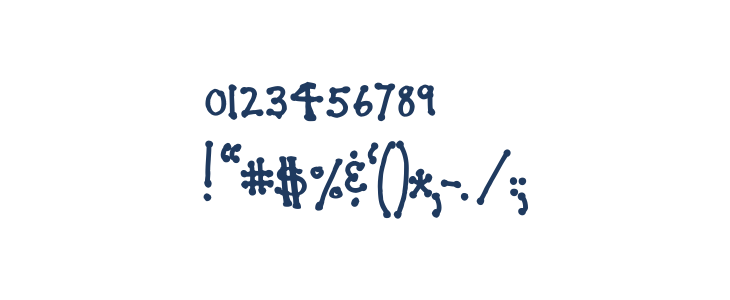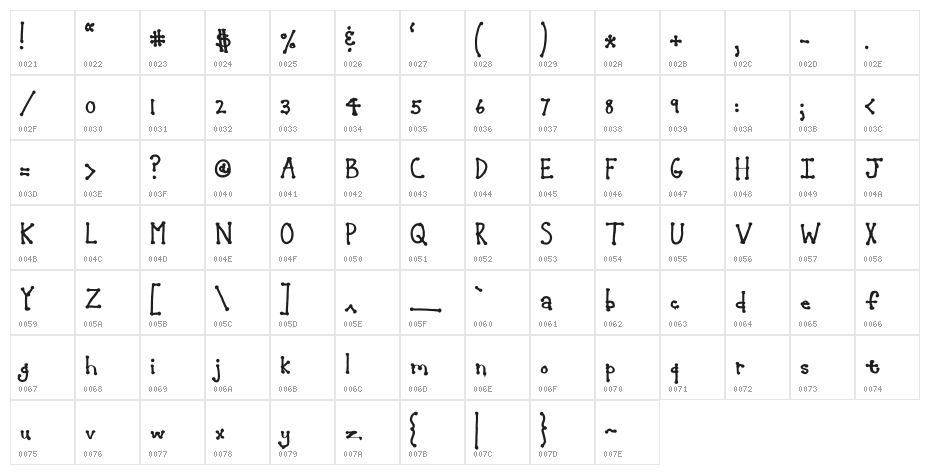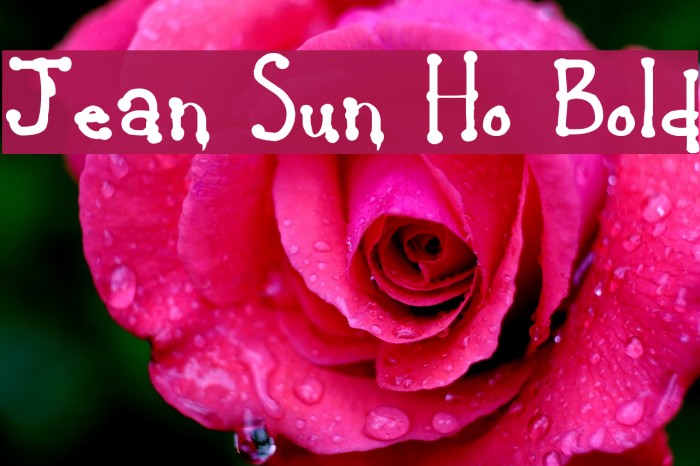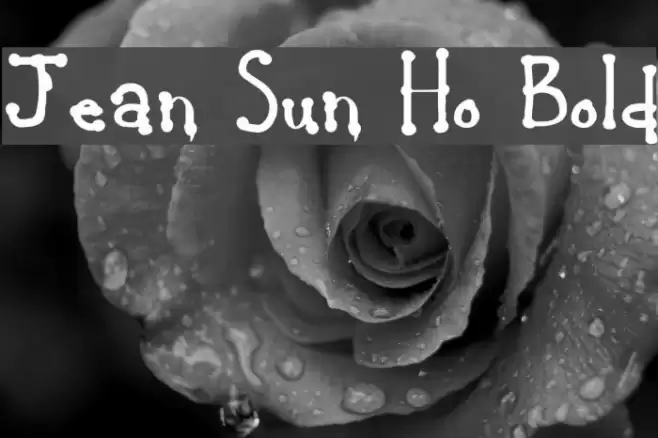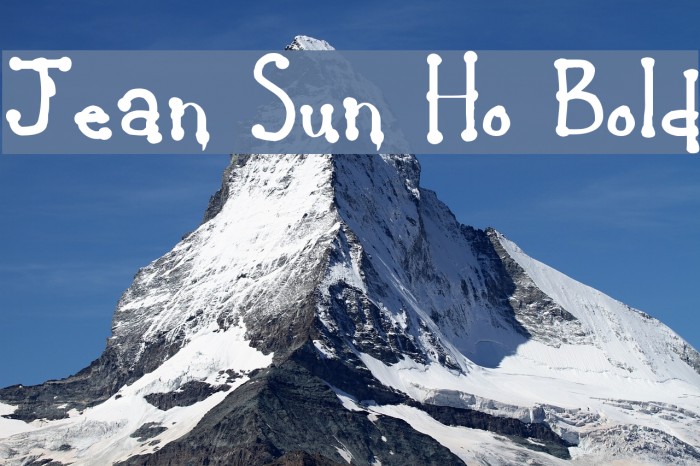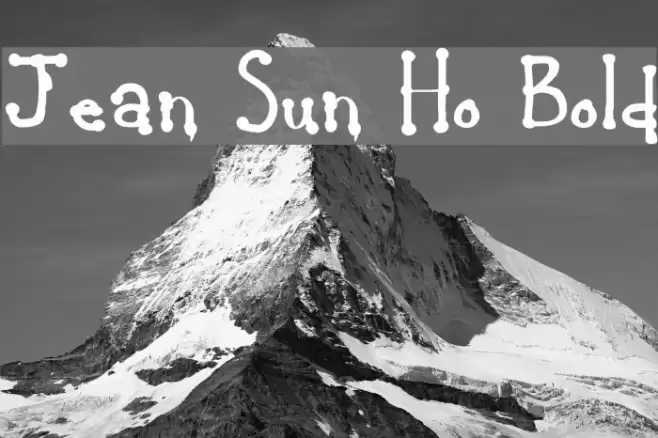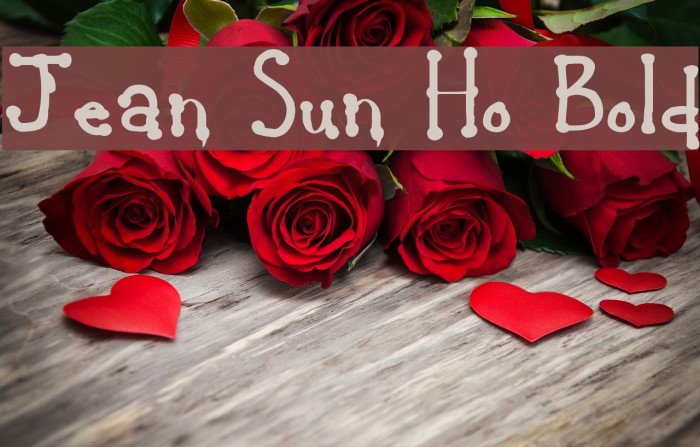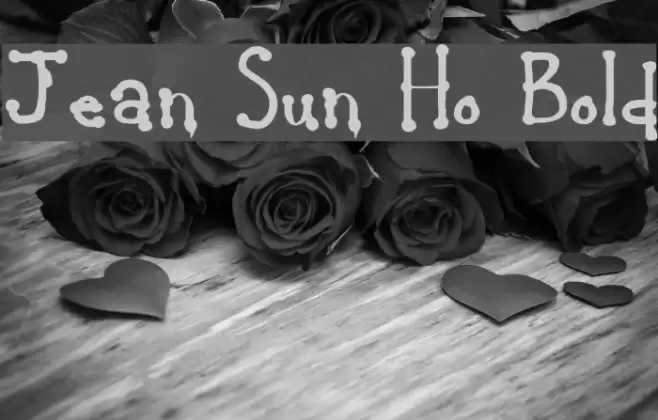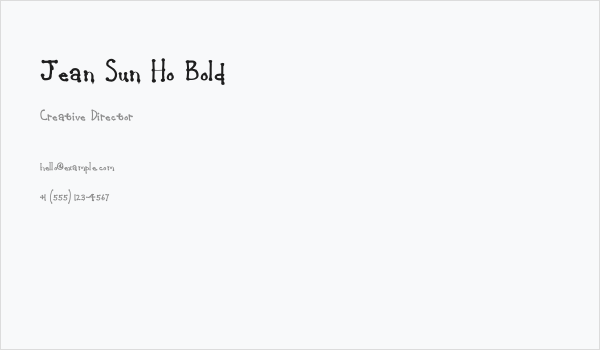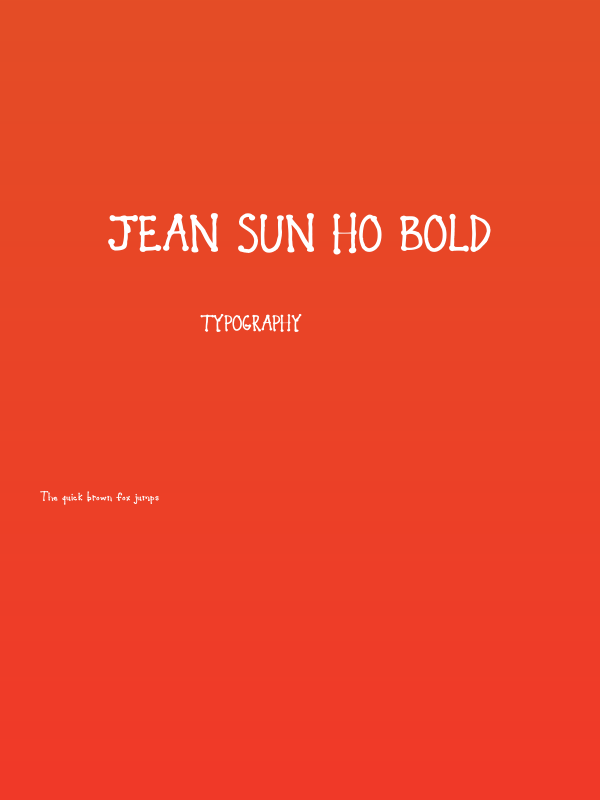
Jean Sun Ho Bold Font
Jean Sun Ho Bold Description
This font features a playful and whimsical design with a hand-drawn aesthetic. The characters have irregular strokes and a slightly uneven baseline, giving them a casual and informal appearance. The uppercase and lowercase letters maintain a consistent style, with rounded edges and varying stroke widths that add to the font's charm. Numbers and special characters are designed to match the overall playful theme, making this font suitable for creative and artistic projects. Its unique style can add a touch of personality and fun to any design.
| Proposed Projects | Ideal for children's books, greeting cards, playful branding, and creative posters. |